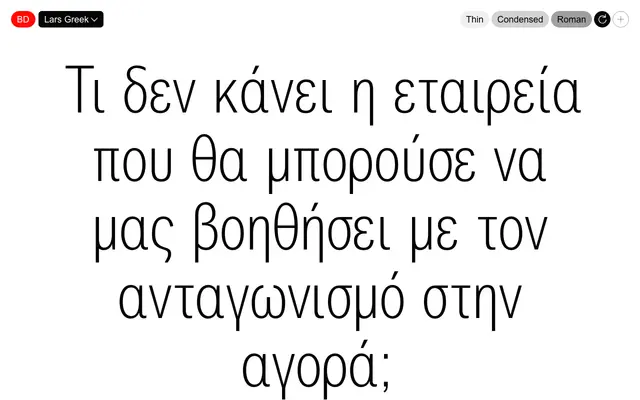
Lars Greek
A Greek-script extension of the Lars grotesque family, available in Thin and Roman weights with a condensed cut.
Lars Greek brings Greek-language support to the Lars grotesque, a sans-serif family from Bold Decisions. The available styles include Thin and Roman, with a condensed variant offering tighter setting options. Suited to multilingual projects requiring consistent typographic treatment across Latin and Greek scripts.